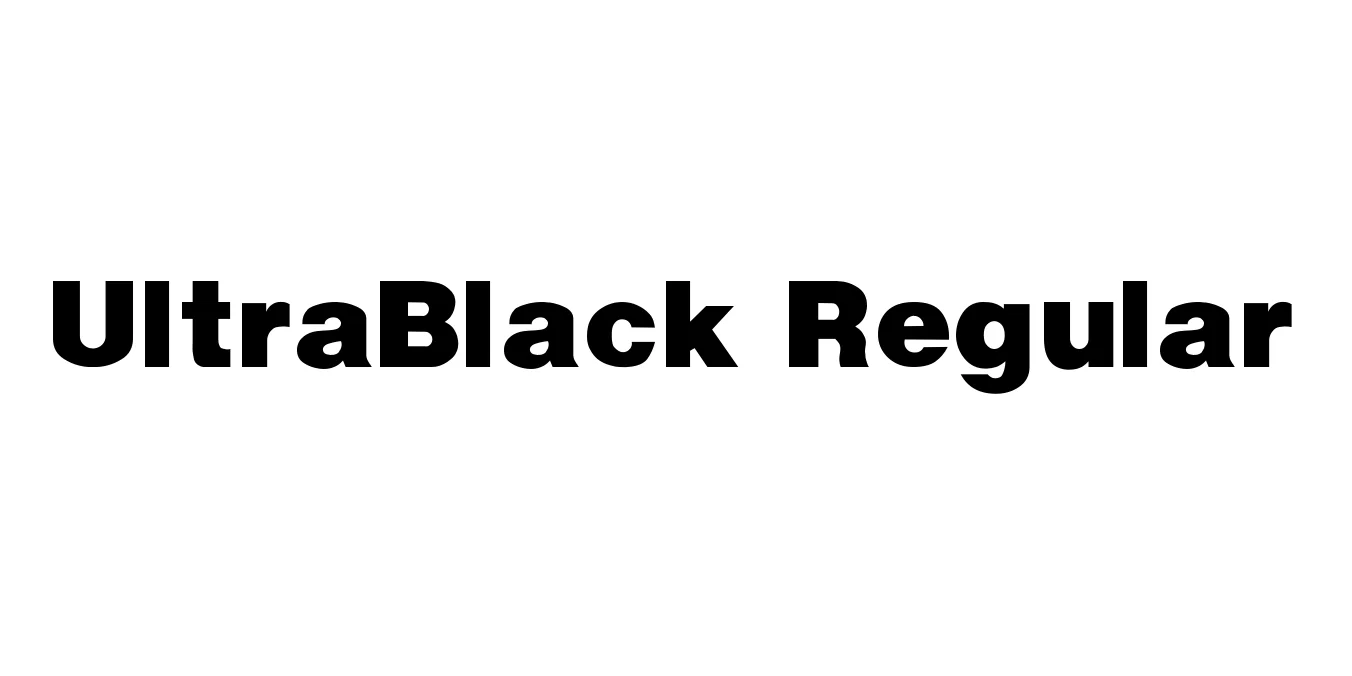
UltraBlack Regular
Designed by Jeff Levine
| Category | Display Sans Serif |
UltraBlack Regular is a powerhouse of a typeface designed to command attention in high-impact environments. Drawing its primary inspiration from the bold, heavy-weight wood types of the late 19th and early 20th centuries, this font captures the essence of classic letterpress aesthetics while maintaining a modern, clean execution. Its thick strokes and minimal negative space make it an ideal choice for headlines that need to stand out against busy backgrounds.
Throughout its history, UltraBlack has been favored by graphic designers for its uncompromising presence and legibility at large scales. While it lacks the delicate nuances of lighter weights, its strength lies in its sheer mass and geometric reliability. It bridges the gap between vintage industrial signage and contemporary digital display work, ensuring that any message delivered through its characters is felt as much as it is read.
UltraBlack Regular Best Uses
High-visibility event announcements and large-scale marketing materials.
Catchy and authoritative titles for websites and editorial layouts.
Logos requiring a strong, stable, and masculine presence.
Product names on retail boxes that need to pop off the shelf.